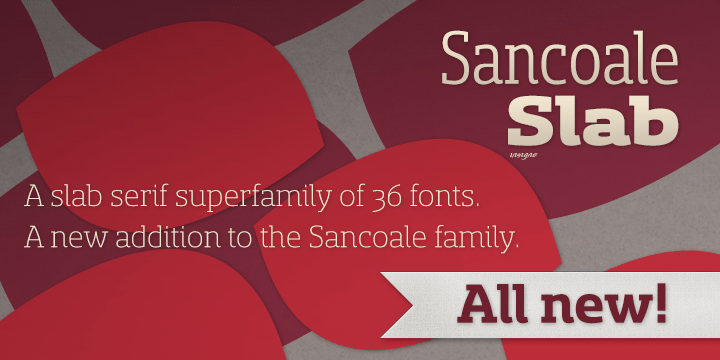
Sancoale Slab Font Free Download is a bold slab serif typeface perfect for designers seeking a modern and energetic aesthetic.
This font is ideal for applications like headlines, posters, branding, web design, and digital advertisements.
What makes Sancoale Slab Font so exciting is its futuristic slab serif design with a tall x-height, offering a clean yet dynamic look that captures attention effortlessly.
The Sancoale Slab Font family includes styles such as Thin, Thin Italic, Light, Light Italic, Regular, Regular Italic, Medium, Medium Italic, Bold, Bold Italic, Black, Black Italic, and Condensed and Extended variants, providing extensive versatility.
With Sancoale Slab Font Free Download, you’re accessing a typeface designed by Jeremy Dooley and published by Insigne Design, known for its simple geometry and contemporary appeal. Featuring over 472 glyphs, including alternates, small caps, and numeral sets like fractions and old-style figures, Sancoale Slab Font supports over 40 Latin-based languages, making it ideal for multilingual projects. Its tech-inspired design ensures legibility in both print and digital formats, perfect for bold headlines or body text in editorial and branding work.
Sancoale Slab Font is celebrated for its ability to balance strength and neutrality, making it a top choice for designers creating impactful visuals. Its compatibility with the Sancoale superfamily, including Sancoale Narrow and Sancoale Softened, allows for cohesive design systems. By incorporating Sancoale Slab Font Free Download into your projects, you elevate your designs with a typeface that’s both modern and versatile. Download it today to test its potential and see how it transforms your creative work.